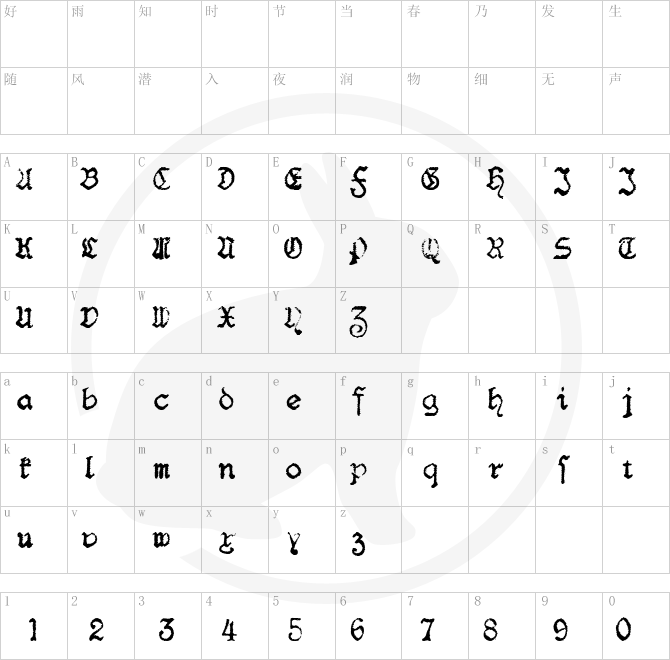
- Font Name:F25 BlackletterTypewriter
F25-BlackletterTypewriter.ttf is a very beautiful artistic font, F25-BlackletterTypewriter.ttf is widely used in the design and printing of various books and pictures,F25-BlackletterTypewriter.ttf has a strong visual impact,F25-BlackletterTypewriter.ttf is a commonly used font in newspapers, magazines and books, and is used in posters, e-commerce Poster design, store design, logo design, font design and other fields.F25-BlackletterTypewriter.